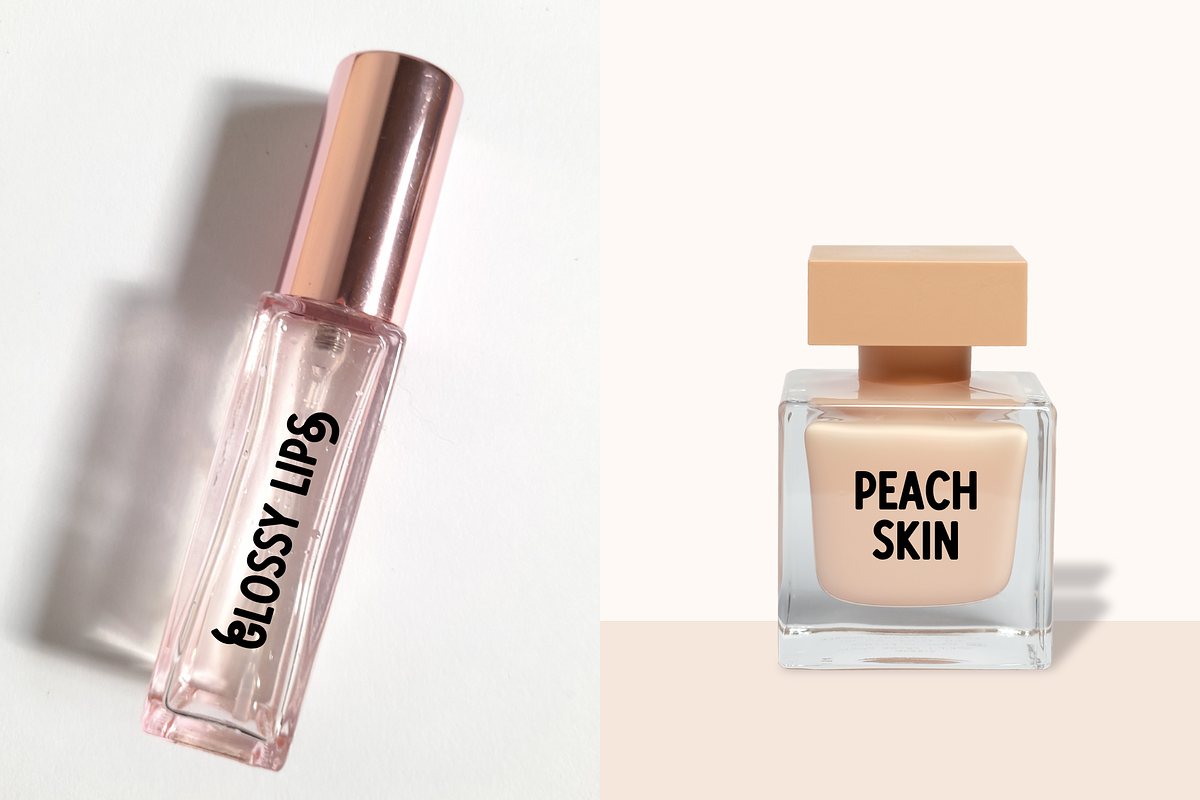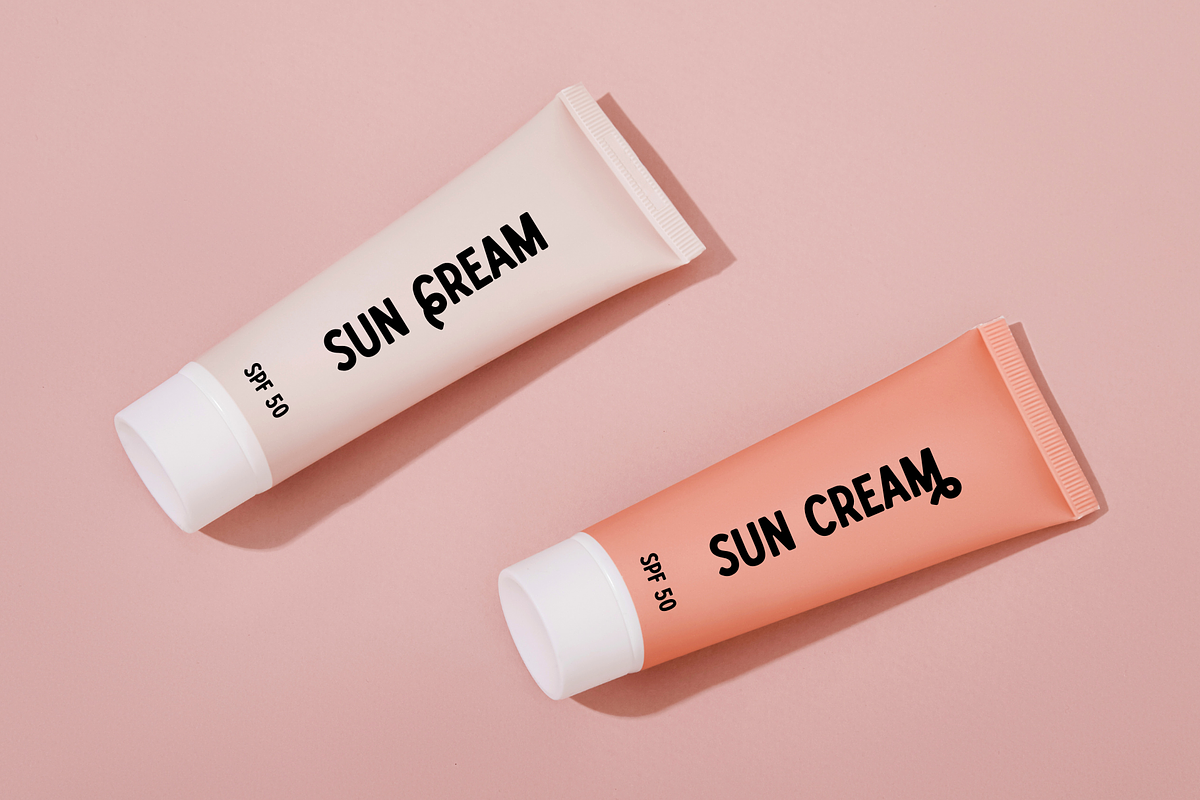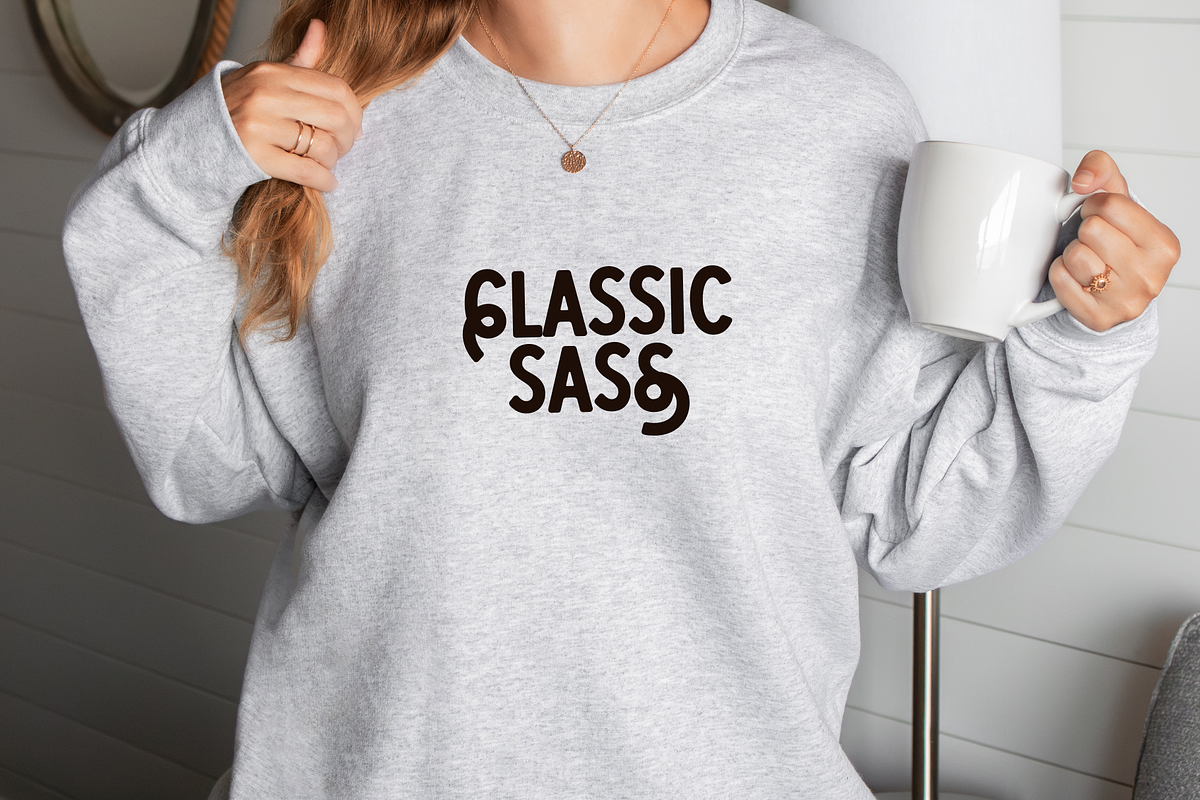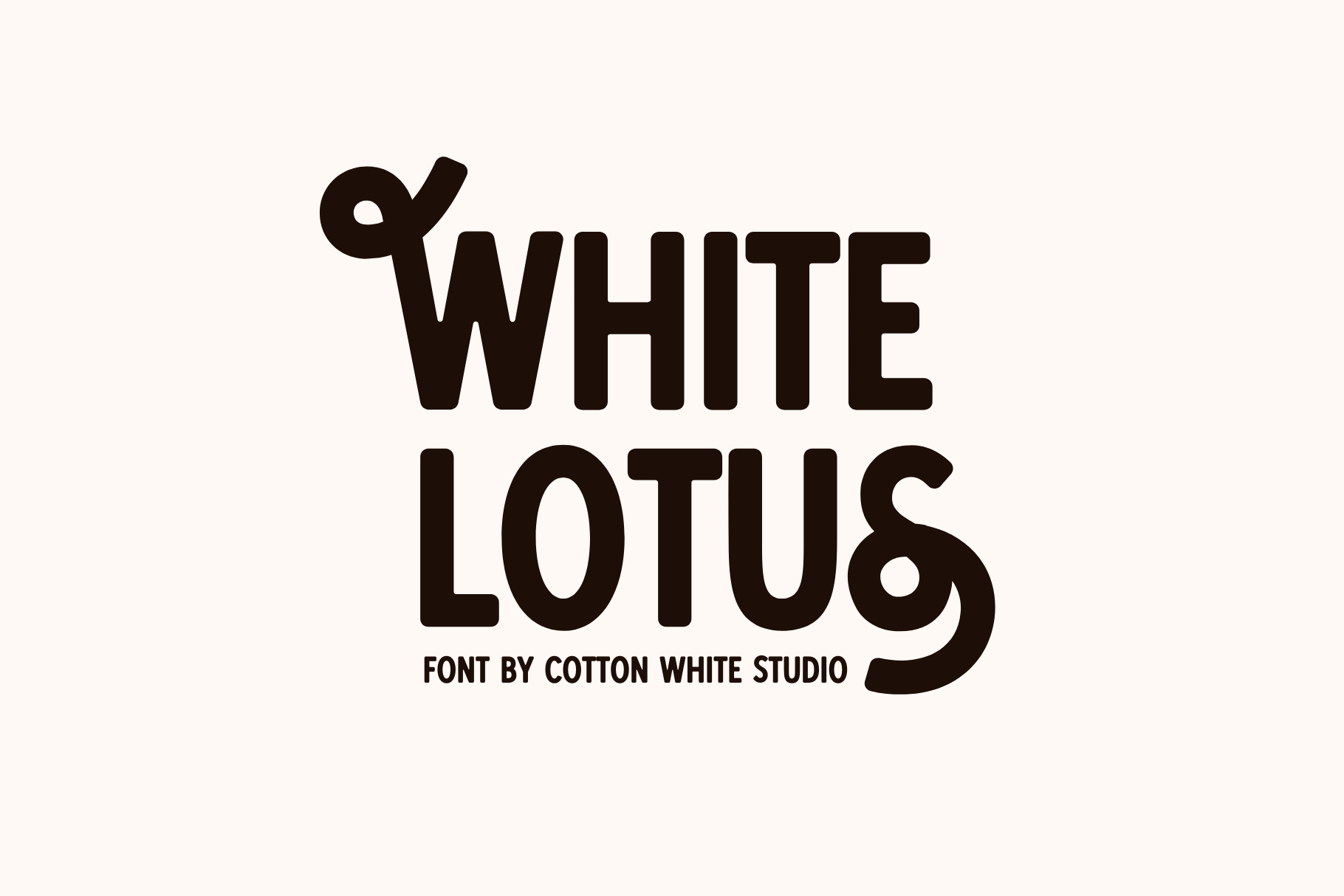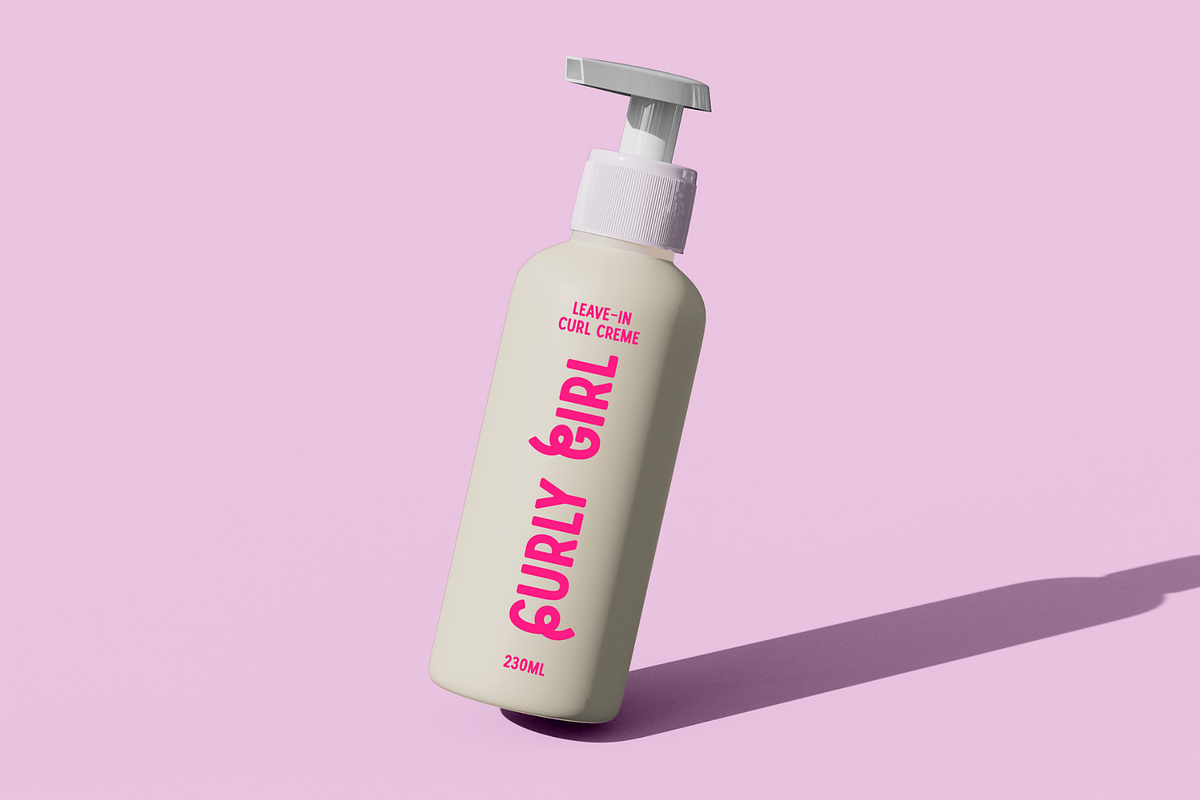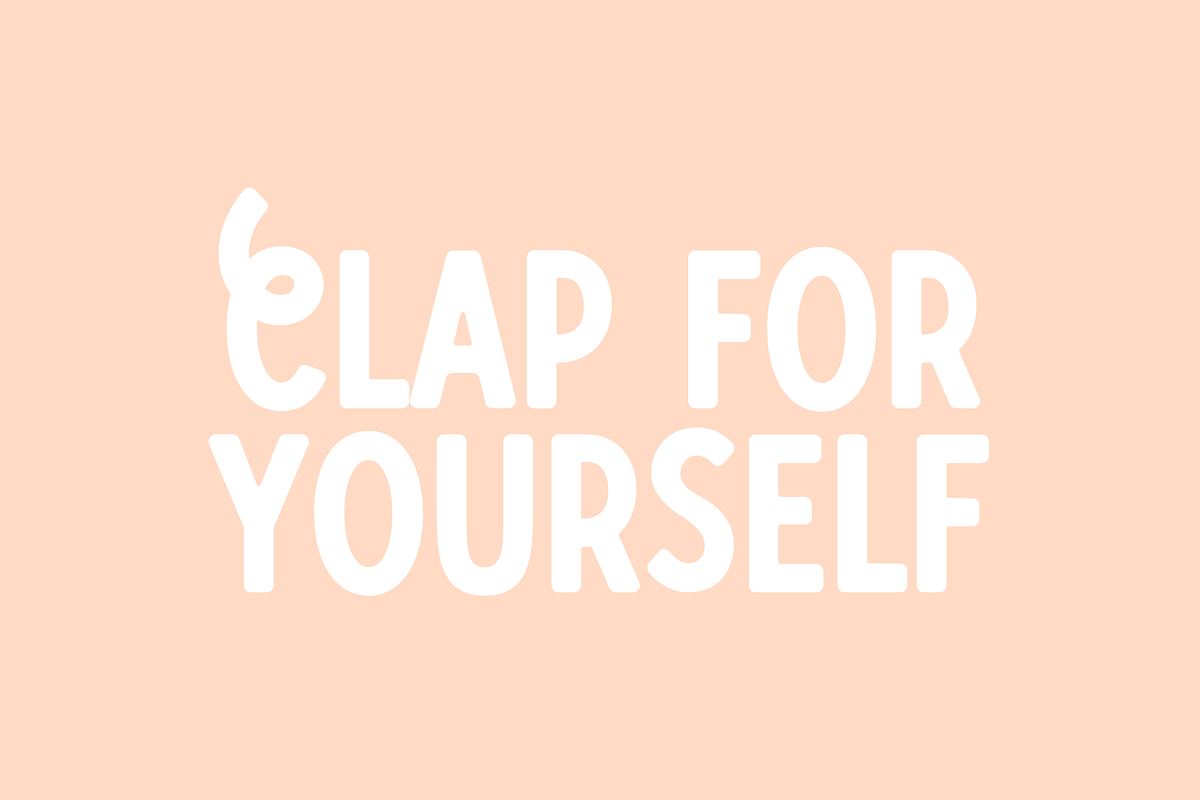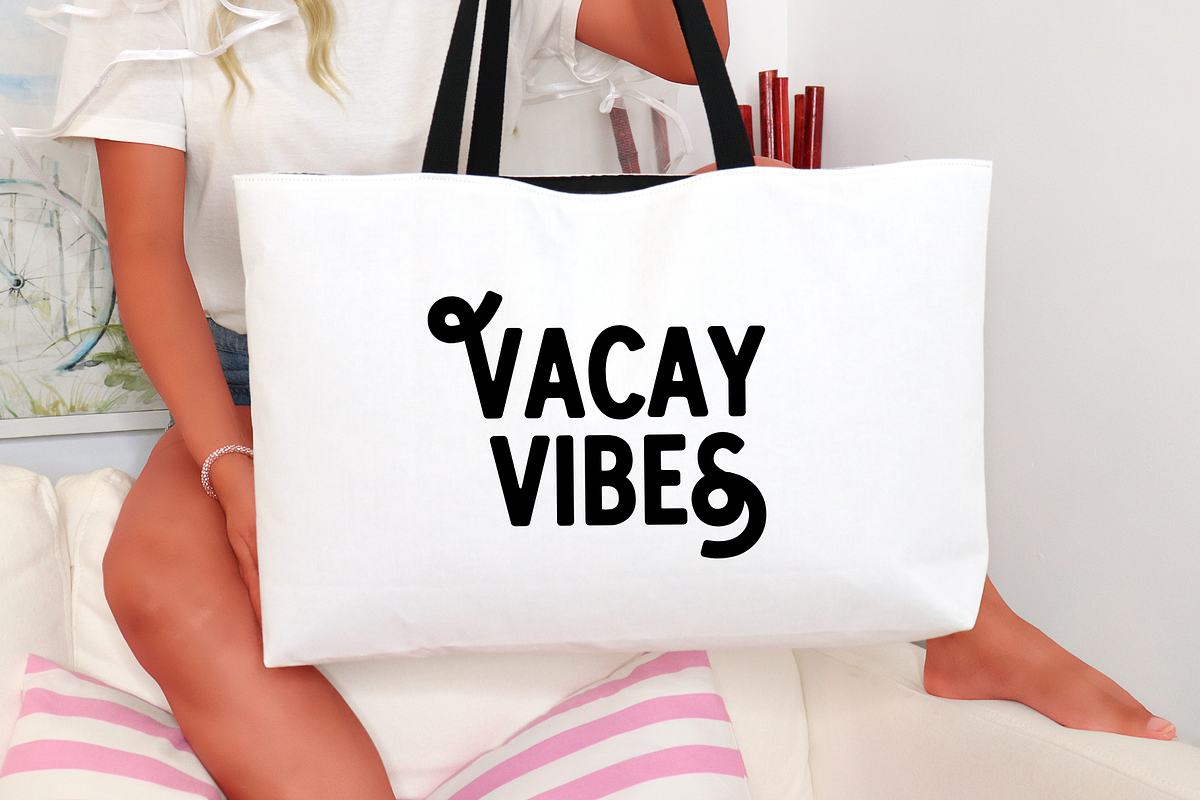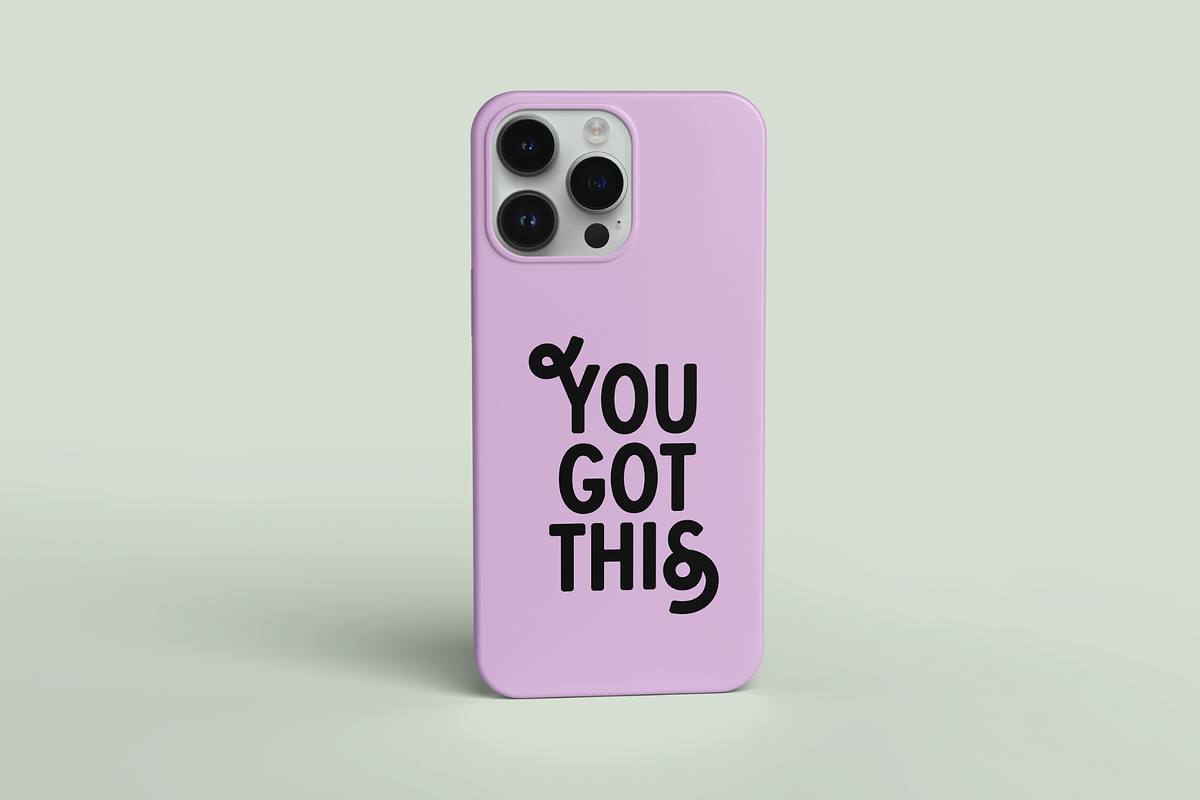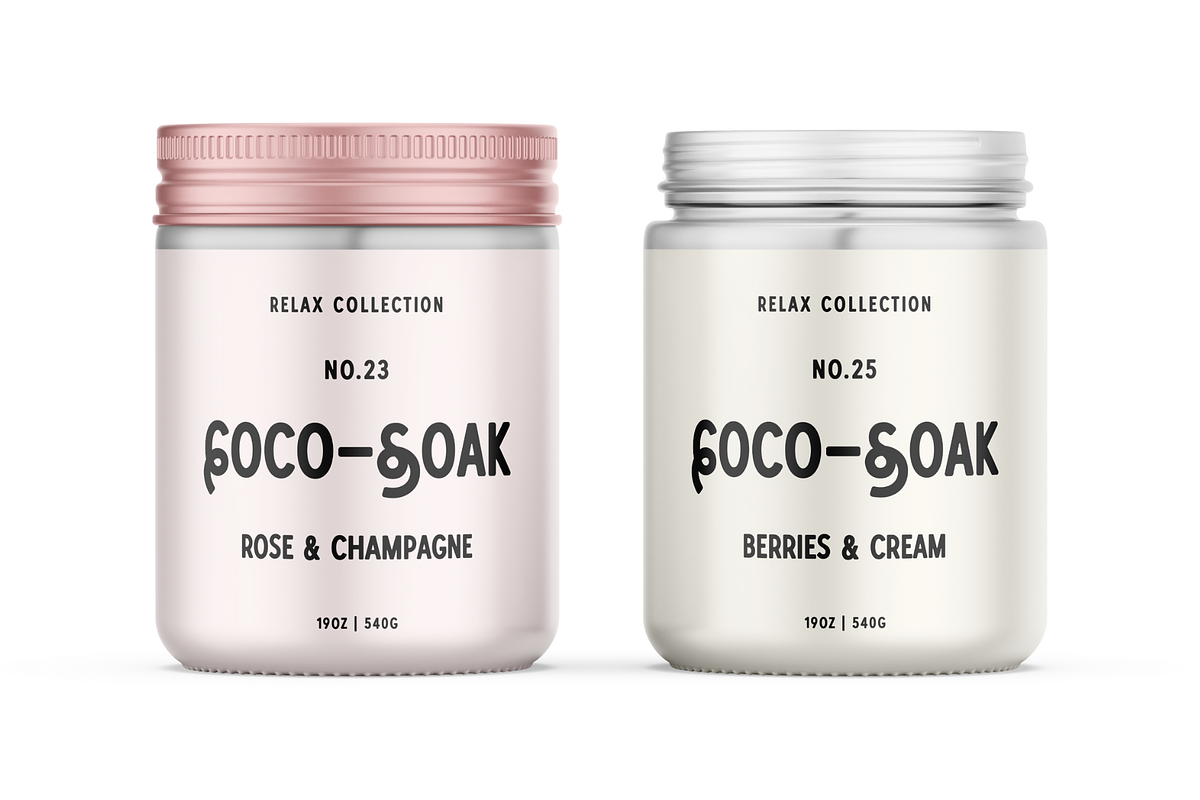
White Lotus Font
White Lotus is an all-caps font with alternative letters.. It's a clean but playful typeface that's perfect for creating fun designs, posters, apparel, greeting cards, social media posts, or any creative project that needs a little extra sweetness.